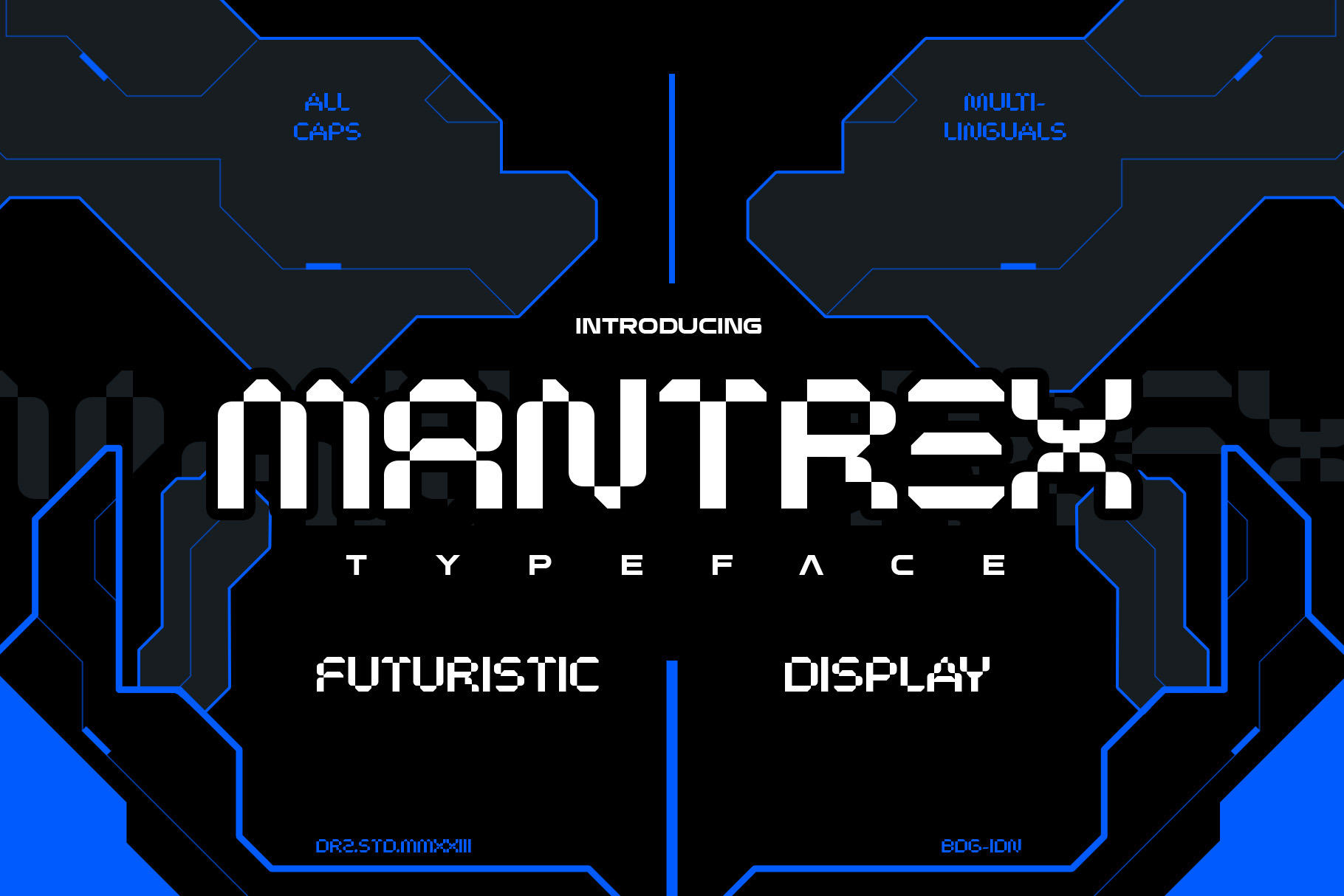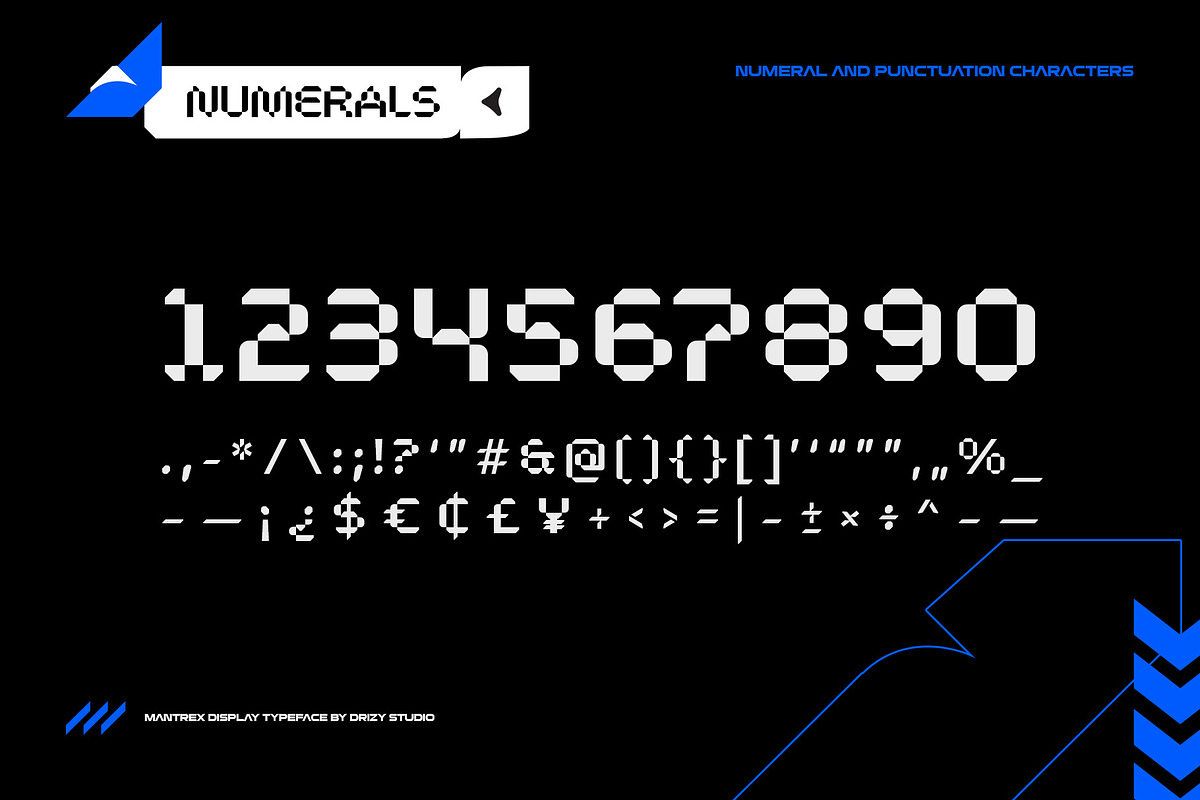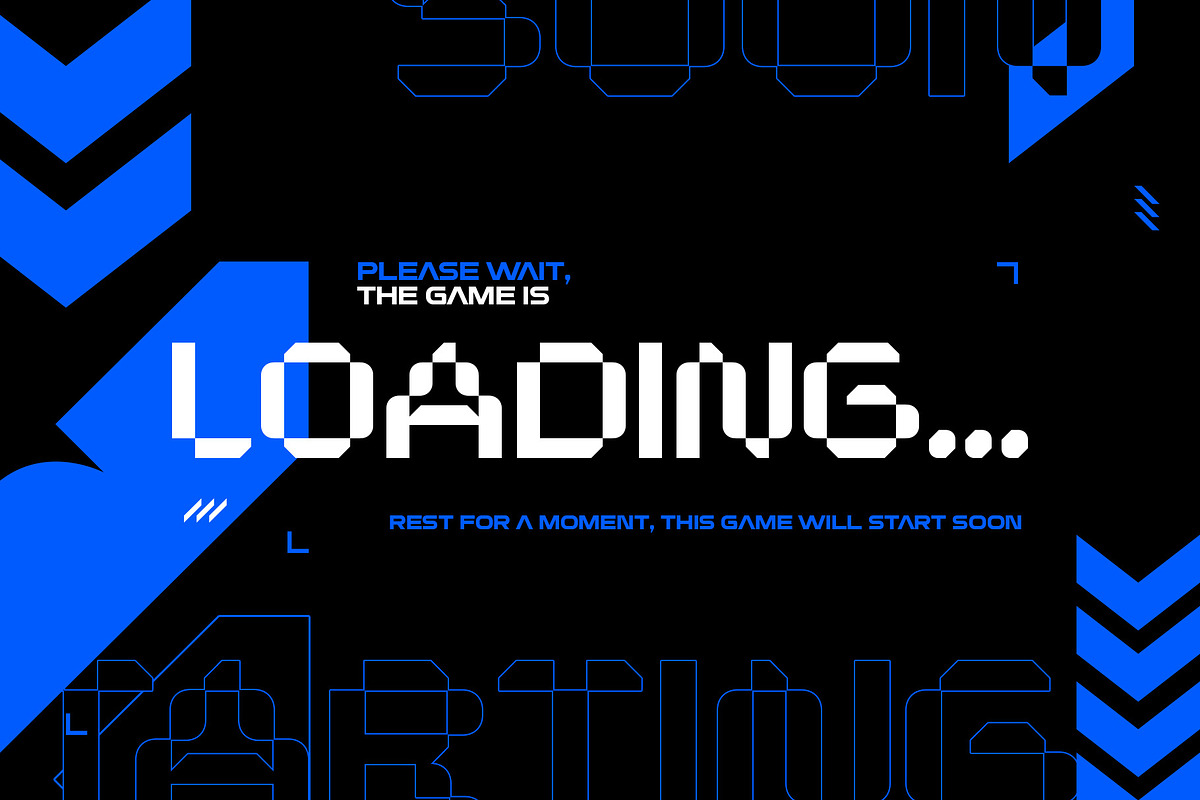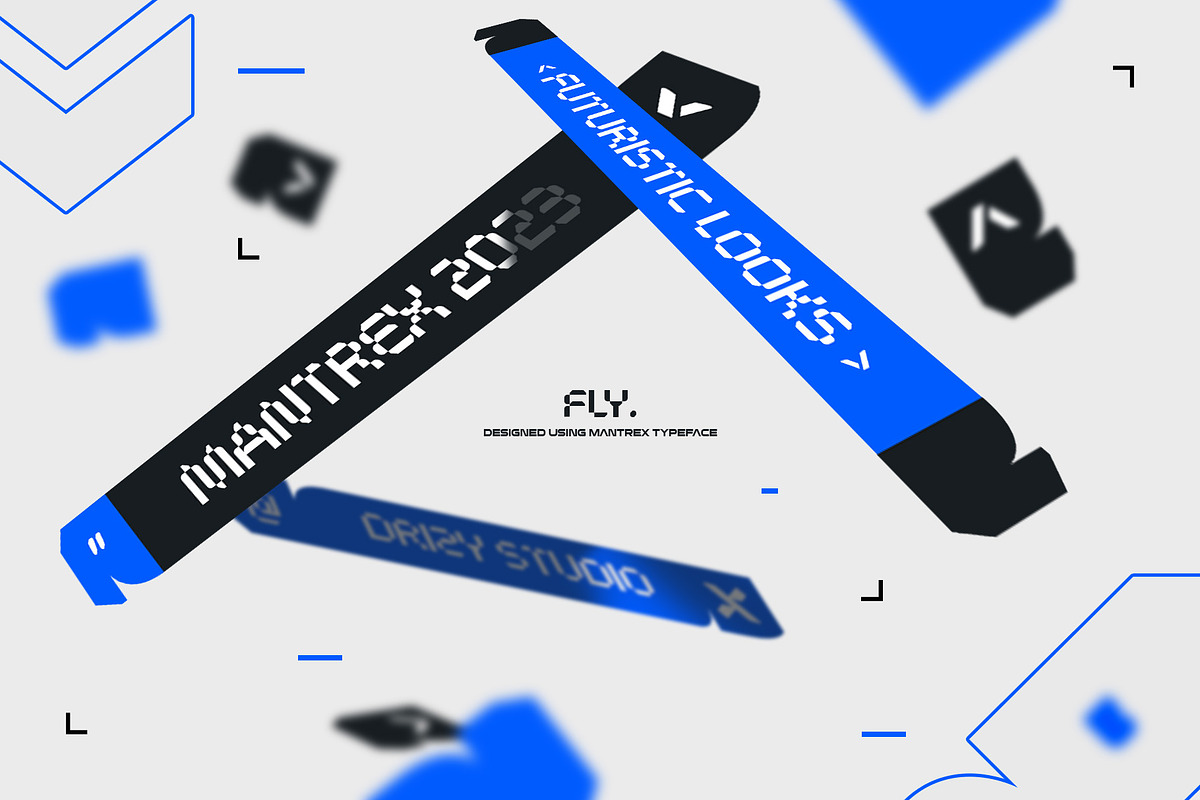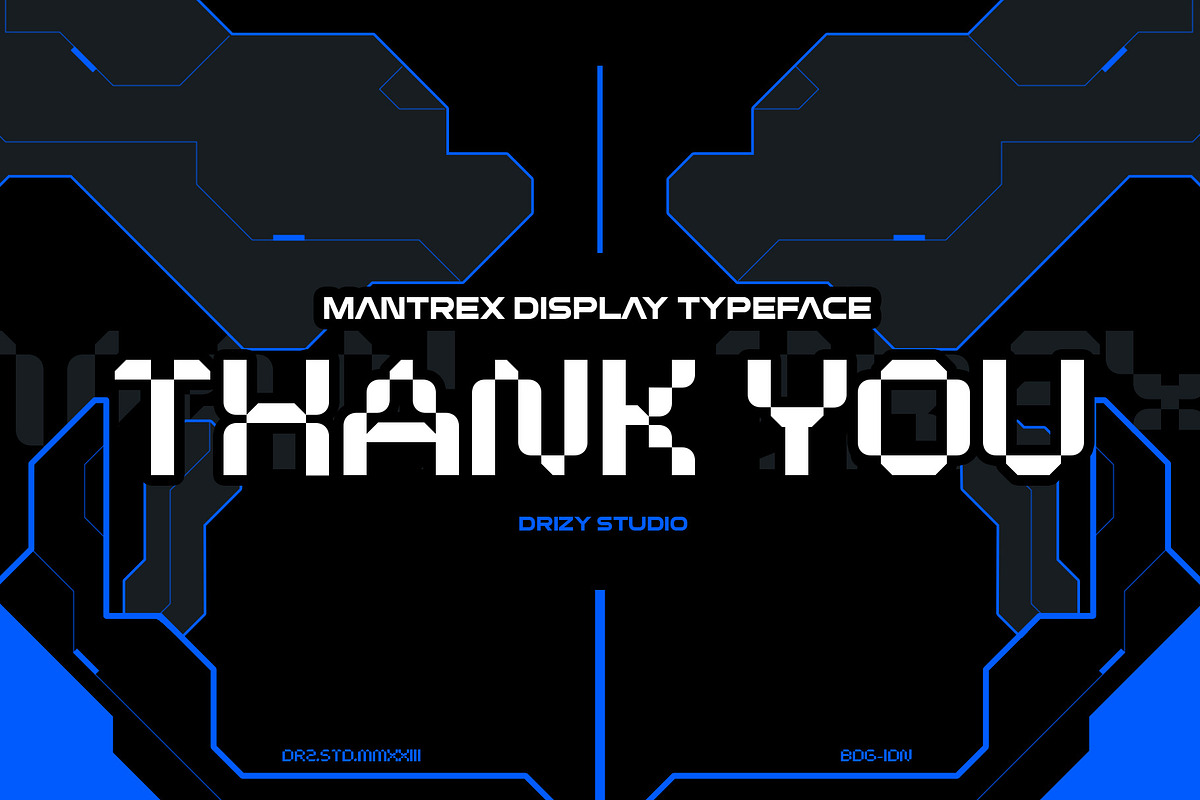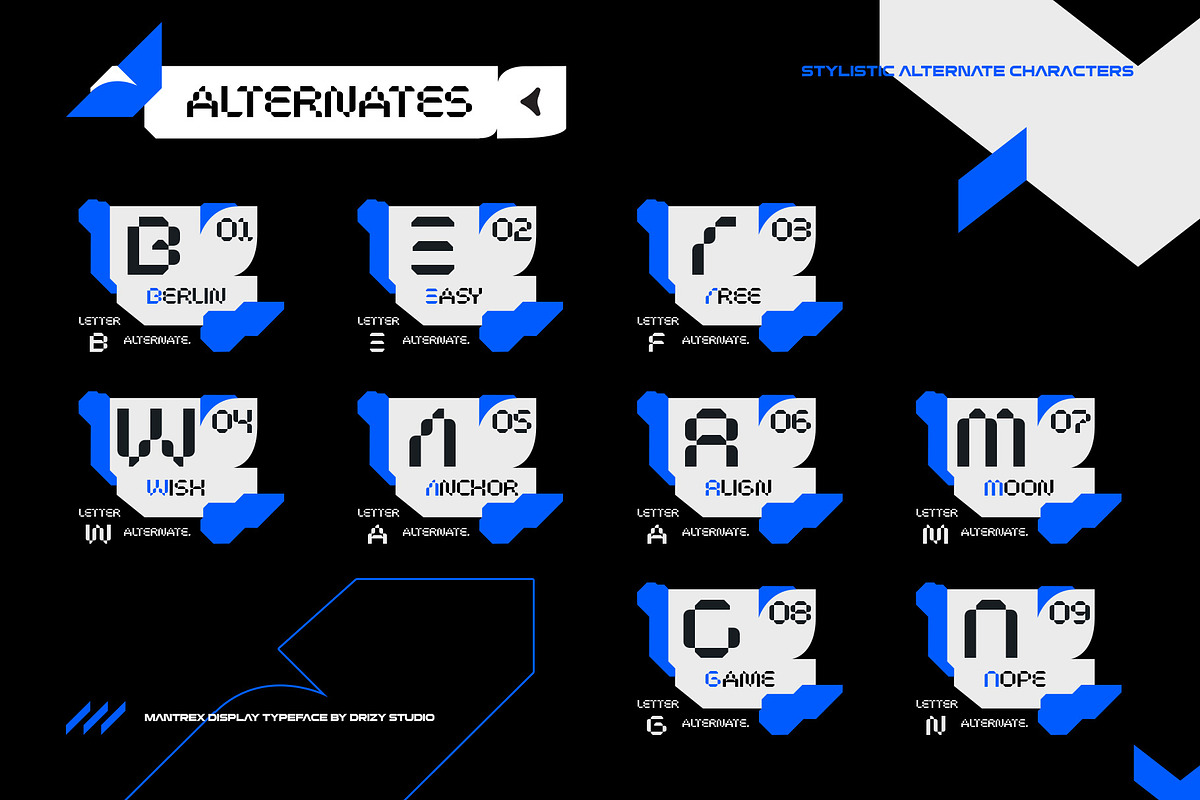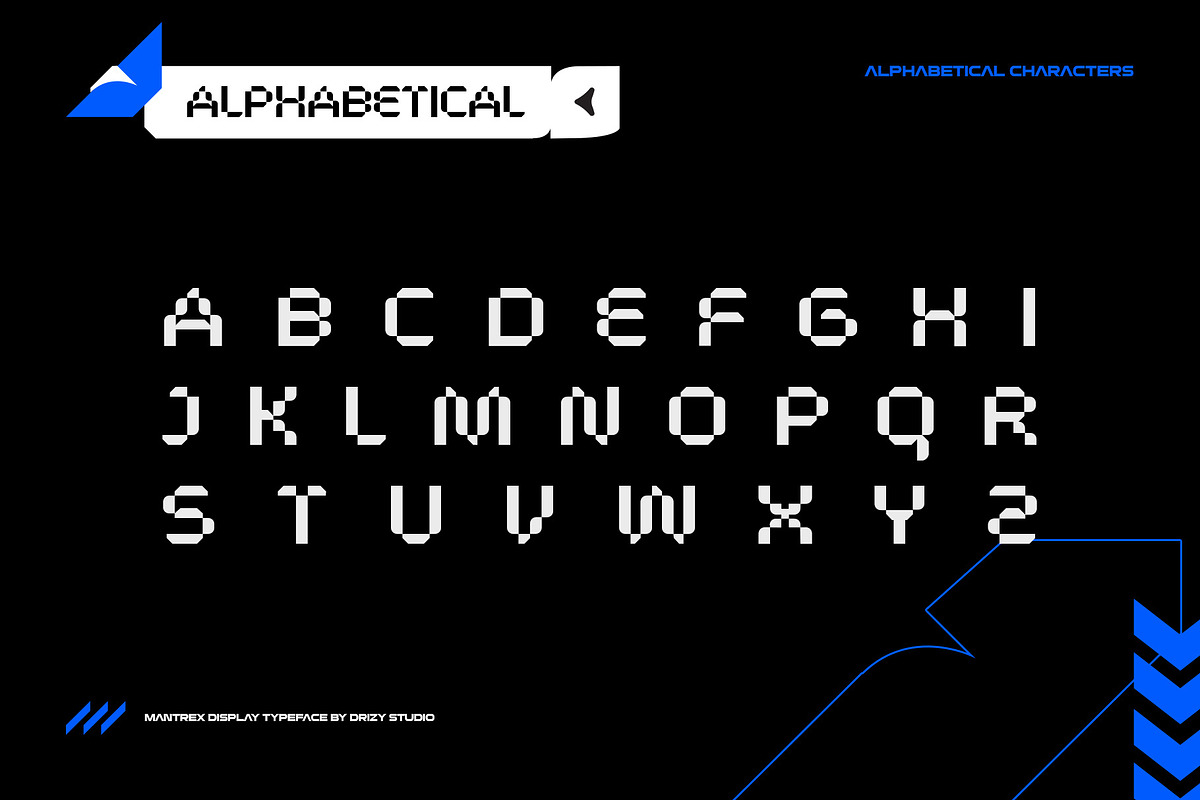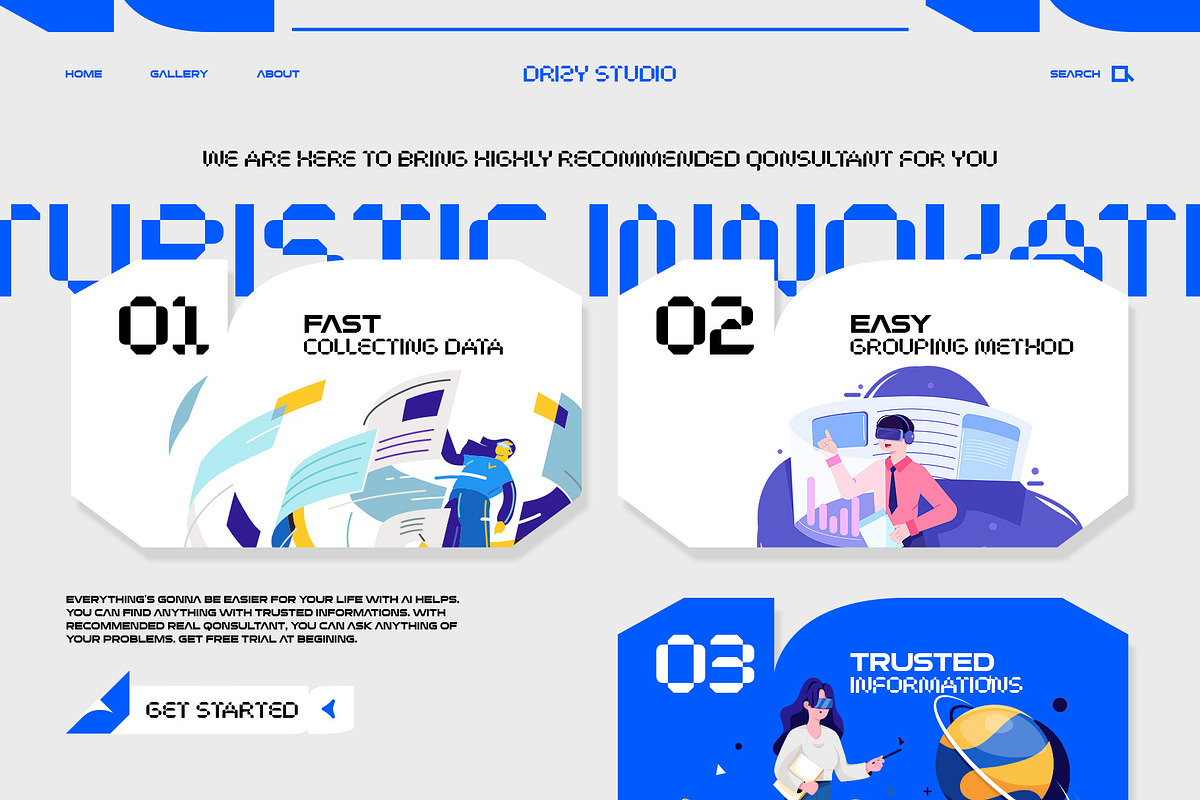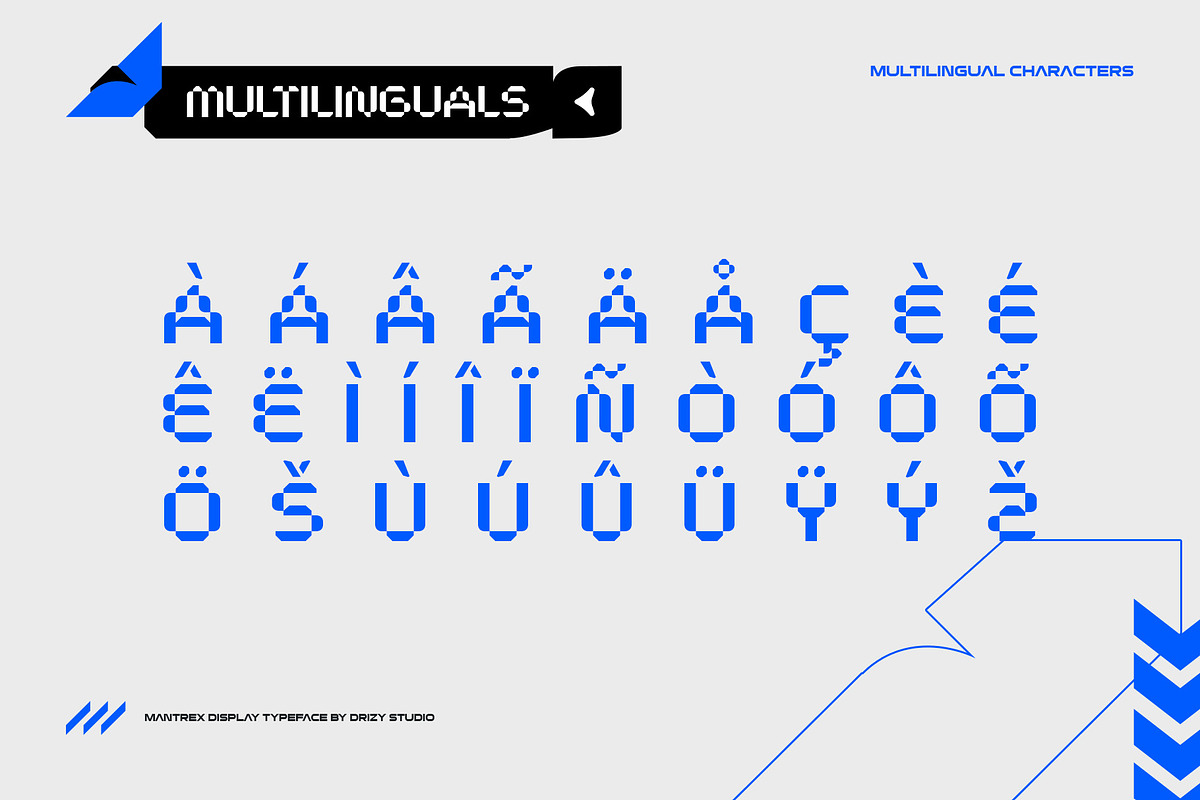
Mantrex - Futuristic Display Font
Mantrex - Futuristic Display Typeface
Experience the future of design with Mantrex, a mesmerizing Futuristic Display Typeface that pushes the boundaries of creativity and imagination. Mantrex is not just a font; it's a visual journey into uncharted typographic territory, perfect for projects that demand a bold, forward-thinking aesthetic.
Mantrex features: Character Set Punctuation & Numbers Multilingual Support Alternates
Elevate and explore the design possibilities with this Folded font!